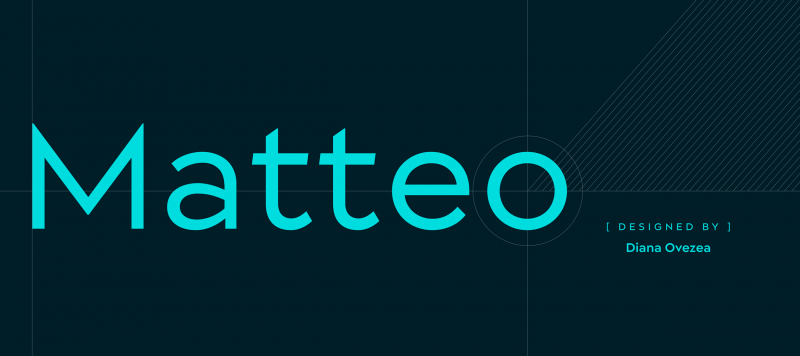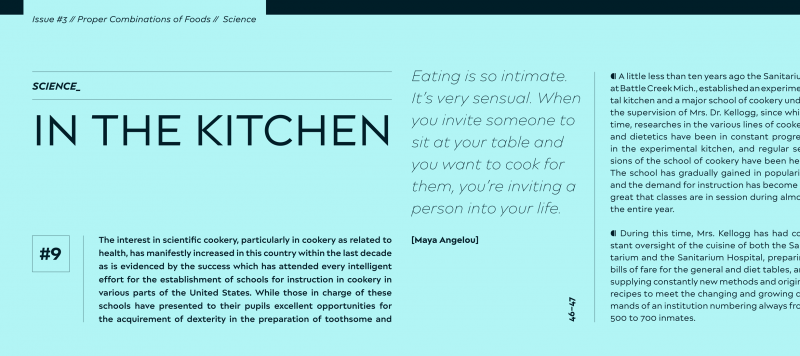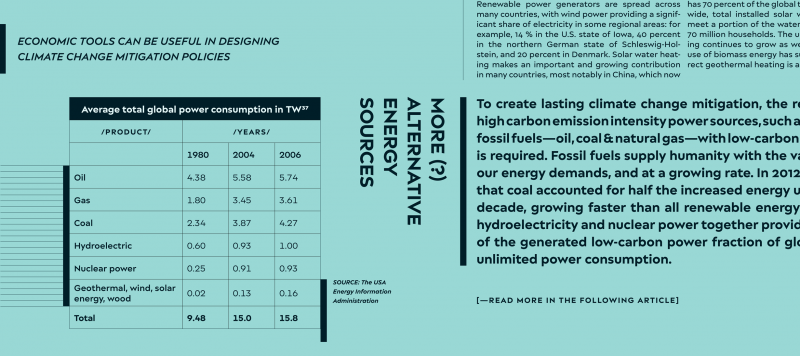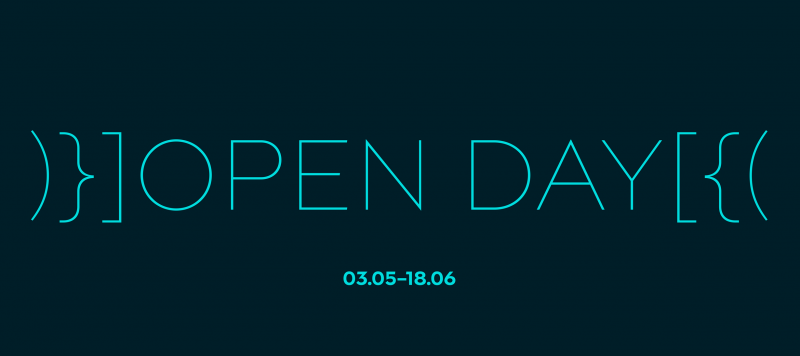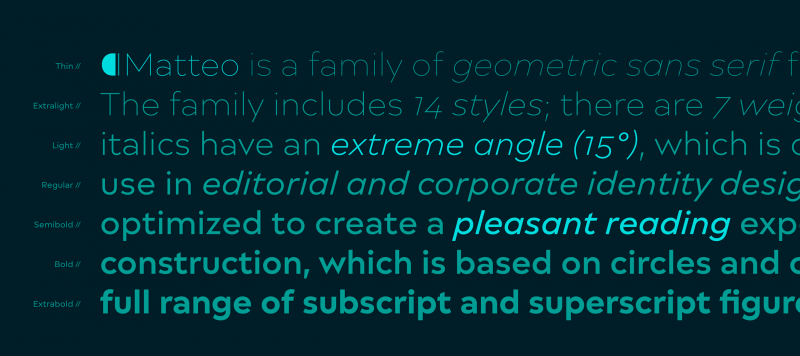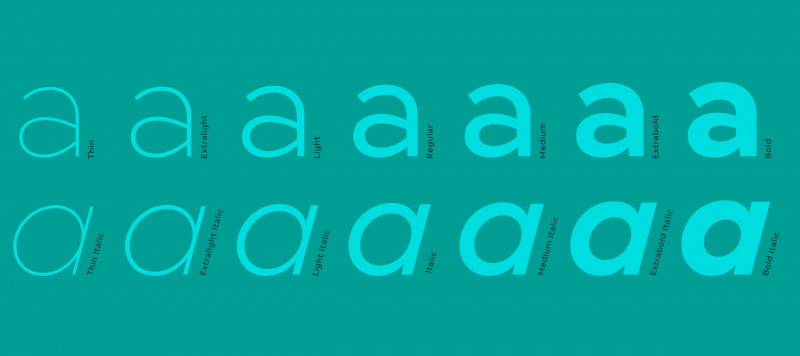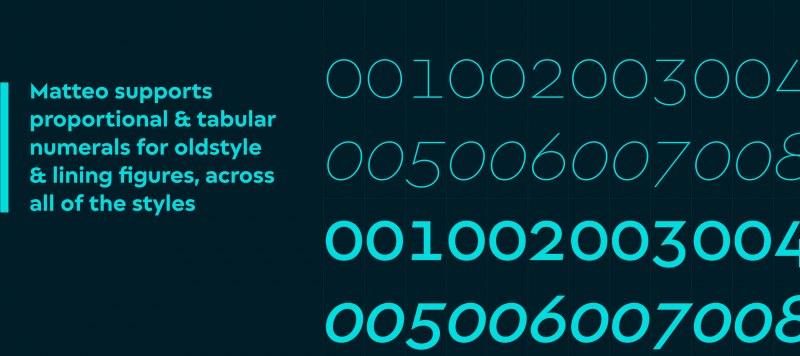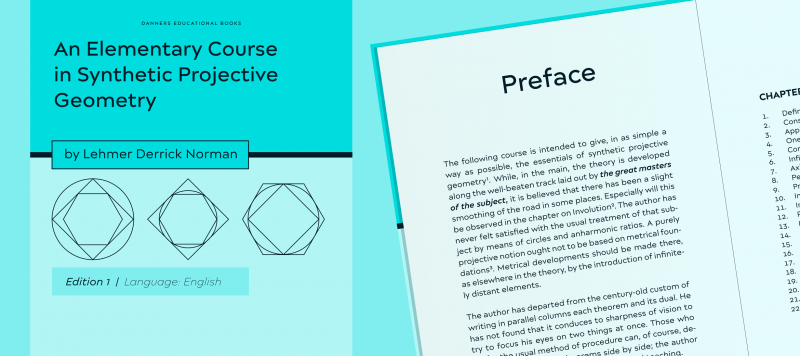
Matteo is a family of geometric sans serif fonts. Designer Diana Ovezea has given the family an Italian name so that users might call fast cars to mind when they see it. The family includes 14 styles; there are seven weights, ranging from Thin to Bold. Each of these includes a companion italic. Matteo’s italics have an extreme angle (15º), which is quite unusual for a sans serif design. These italics are oblique in form, with a single-storey ‘a’ in place of the upright’s double-storey ‘a’. Matteo is an excellent selection for use in editorial and corporate identity designs, as well as advertising or annual reports. The shapes of its letterforms, as well as their spacing, have been optimized to create a pleasant reading experience, even in longer texts. The most prominent feature of the typeface is its geometric construction, which is based on circles and ovals. Letterforms in all seven of the weights are based on the same skeleton, with the ‘O’ maintaining its circular proportions (this makes Matteo’s lighter weights feel wider than its heavier ones). Several of Matteo’s letterforms include sharp corners, e.g., the ‘A’, ‘N’, ‘M’, ‘V’, ‘W’, and ‘Z’, as well as in the numerals ‘2’, ‘3’, and ‘7’. The capital ‘T’, ‘E’, ‘F’, and ‘Z’ each feature slightly angled endings on their horizontal strokes. Three special characters are particularly noteworthy in terms of their design: ¶, ≠, and &. Each font includes four sets of numerals, as well as a full range of subscript and superscript figures for typesetting factions. The period, comma, colon, and semicolon have the same width in each of the family’s 14 fonts; this allows users to set tables more easily. The fonts are also ‘logo-ready’, with extensive kerning having been defined even between the lowercase and uppercase letters. This enables the easy typesetting of CamelCase terms, like ‘SonVender’, ‘eTones’, ‘MunYan’, etc., without any ugly gaps appearing between lowercase and uppercase letters.
Family Name | Matteo |
Designer(s) | Diana Ovezea |
Classification | Sans |